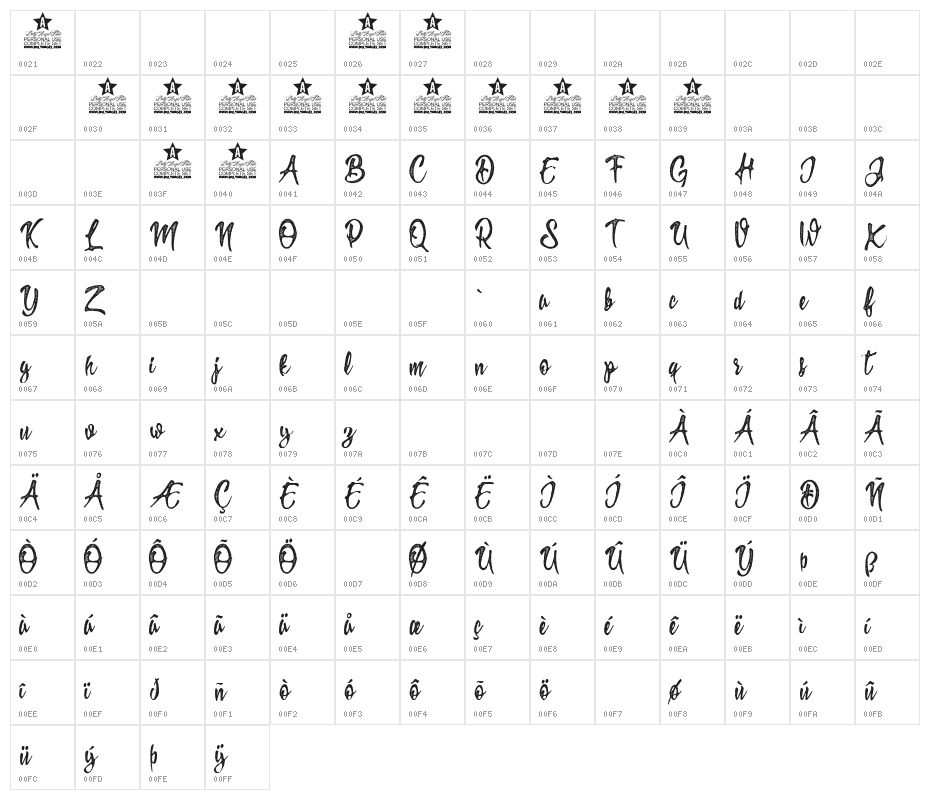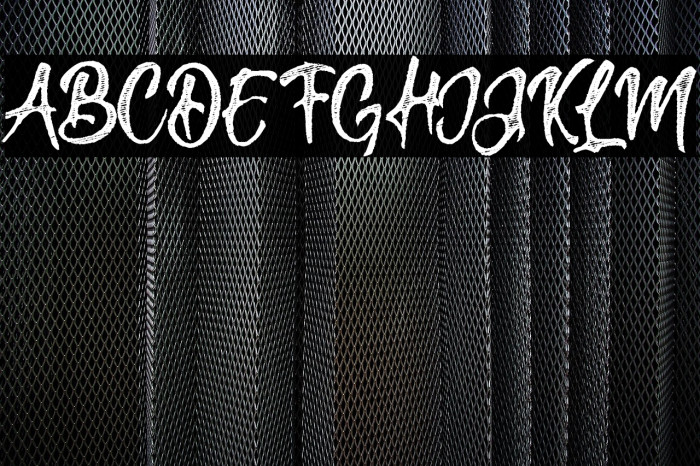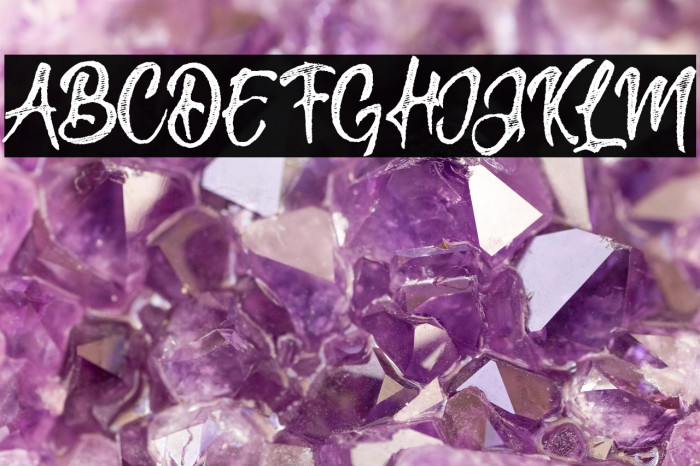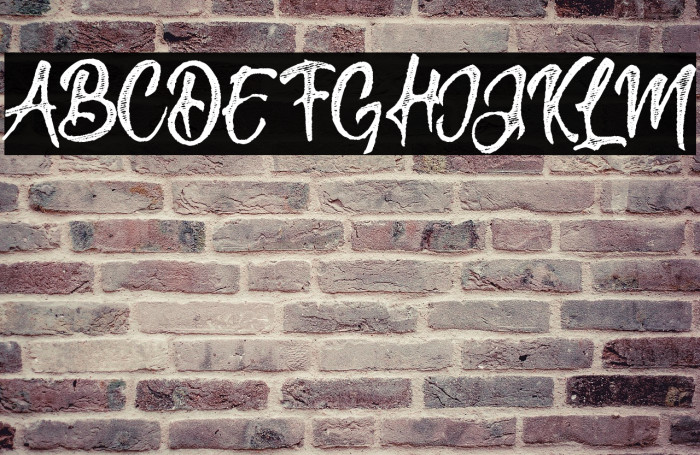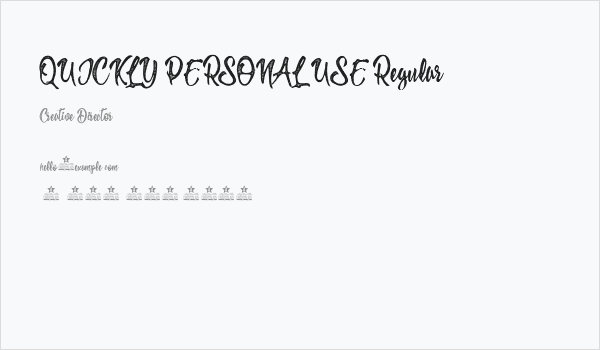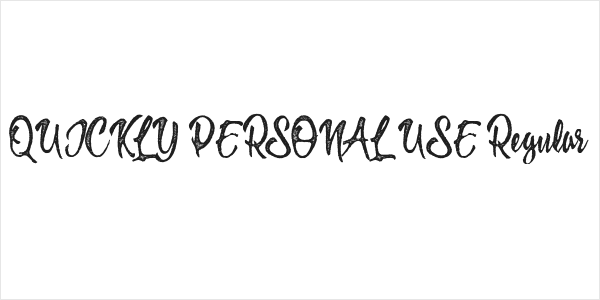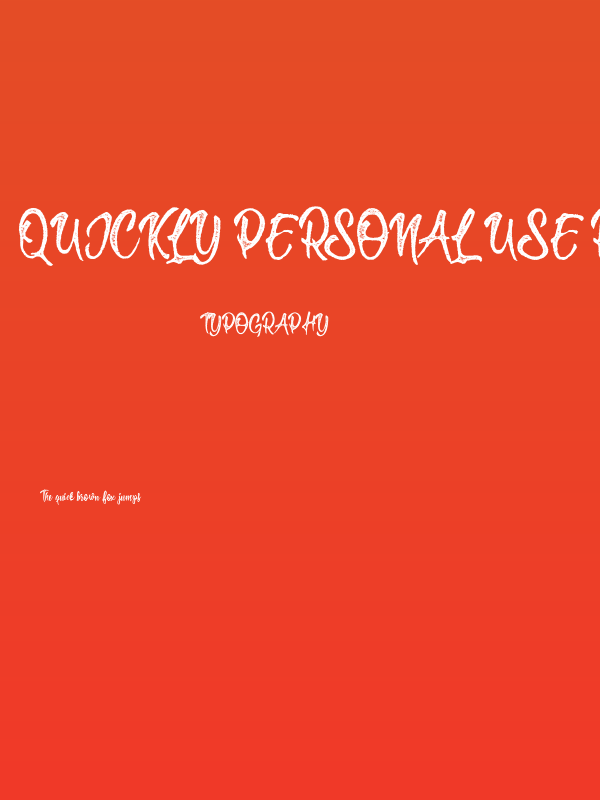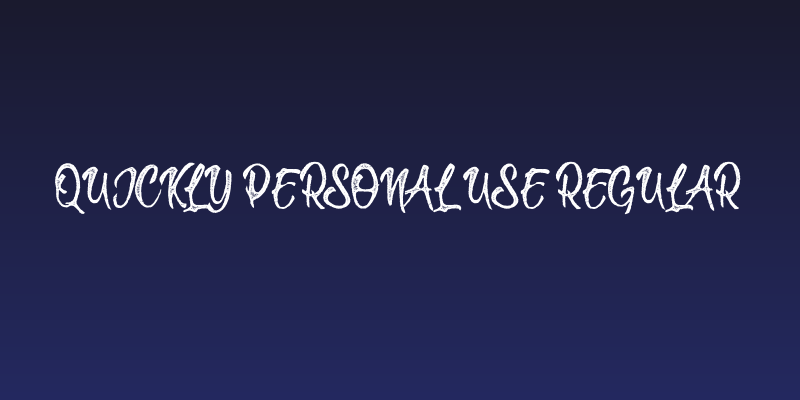
QUICKLY PERSONAL USE Regular Font
QUICKLY PERSONAL USE Regular Description
This font features a dynamic and expressive style with a hand-drawn appearance. The uppercase letters are bold and slightly slanted, giving them a sense of movement and energy. The lowercase letters maintain a consistent flow, with smooth curves and a casual, yet elegant feel. The texture of the strokes is rough, adding a tactile quality that enhances its handcrafted look. This font is ideal for projects that require a personal touch, such as invitations, greeting cards, or branding materials that aim to convey creativity and individuality.
| Proposed Projects | Ideal for invitations, greeting cards, branding, and creative projects. |